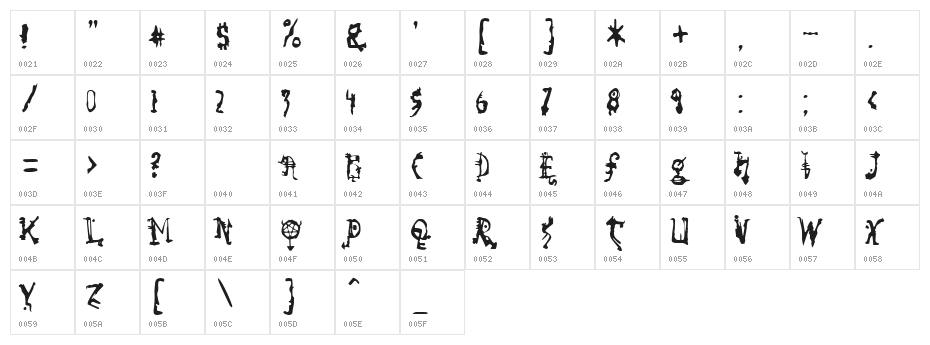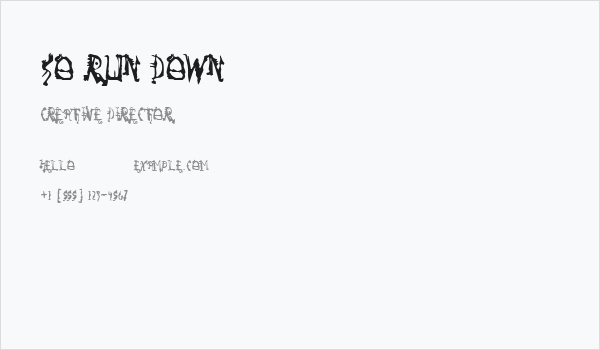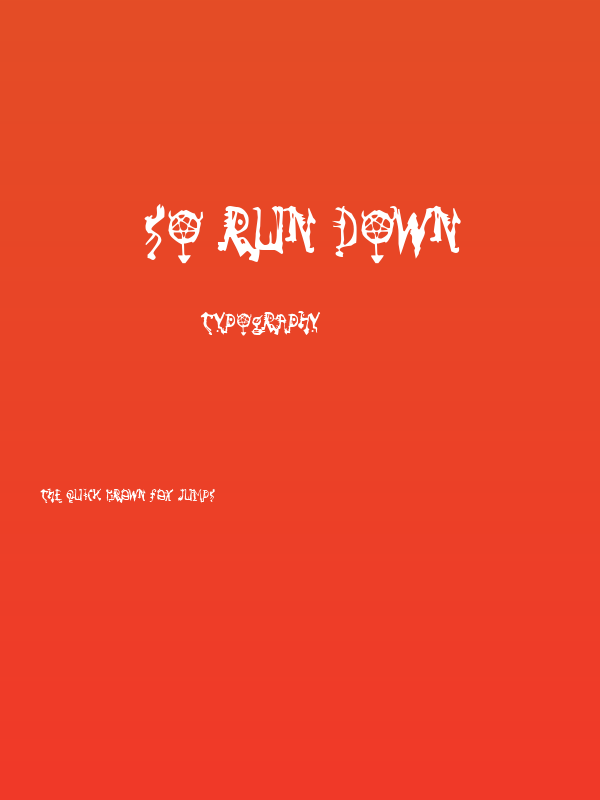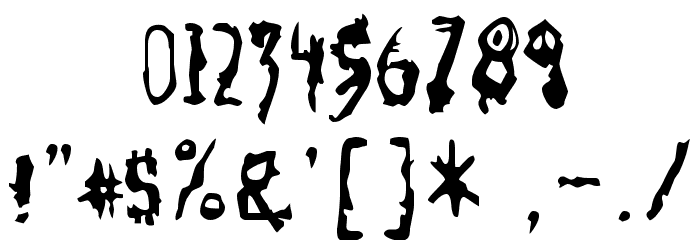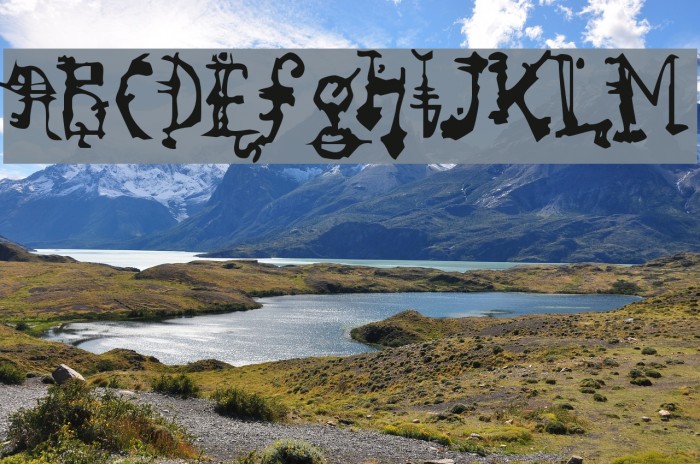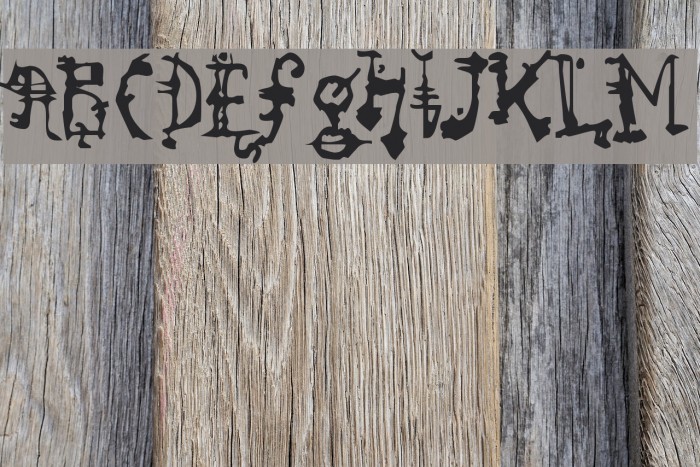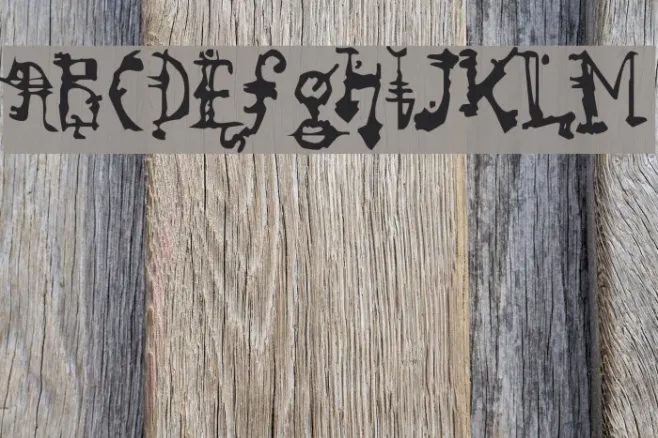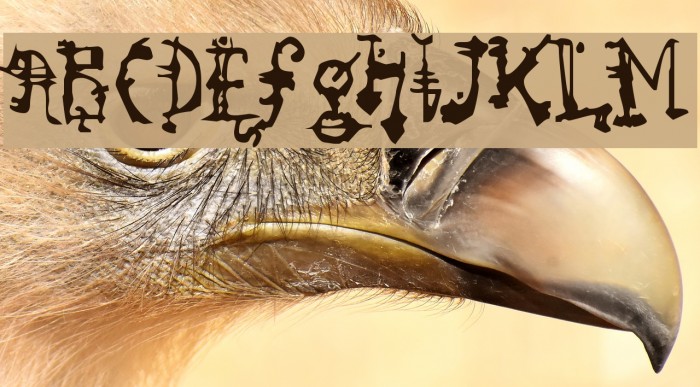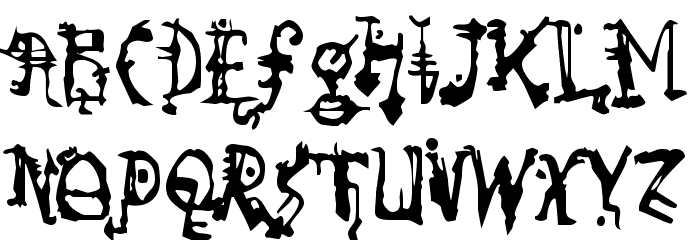
So Run Down Font
So Run Down Description
This font is a highly decorative and intricate typeface with a chaotic and distressed appearance. Each character is uniquely designed with jagged edges and irregular shapes, giving it a spooky and unsettling vibe. The font features a mix of sharp angles and curves, creating a sense of movement and unpredictability. The uppercase and lowercase letters maintain a consistent style, while the numbers and special characters are equally elaborate. This font is perfect for projects that require a dramatic and eerie aesthetic, such as Halloween-themed designs or horror movie posters.
| Proposed Projects | Ideal for Halloween designs, horror movie posters, and spooky event invitations. |